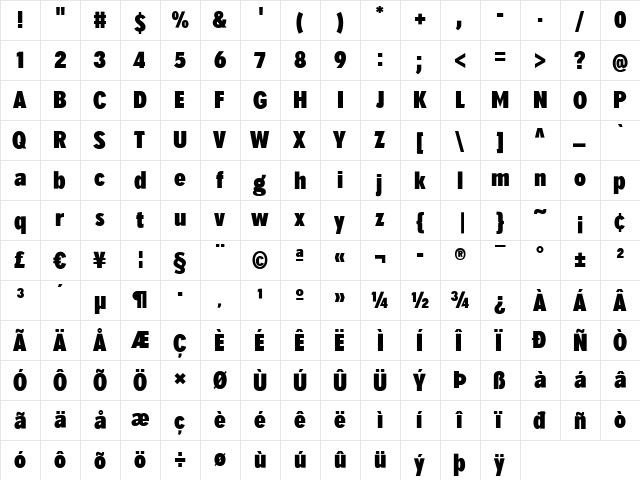
SuperGroteskB Regular Font Preview
SuperGroteskB Regular
SuperGroteskB Regular Font Details
Design Context for SuperGroteskB Typeface
SuperGroteskB has the quiet confidence of well-executed sans-serif typography: versatile, unobtrusive, and dependable at any size.
Font Pairing: Works well alongside a characterful serif or display font that can carry the expressive load while SuperGroteskB handles the functional copy.
Pro Tip: Use SuperGroteskB for UI labels, navigation, and short-form body copy where clean legibility is the priority.